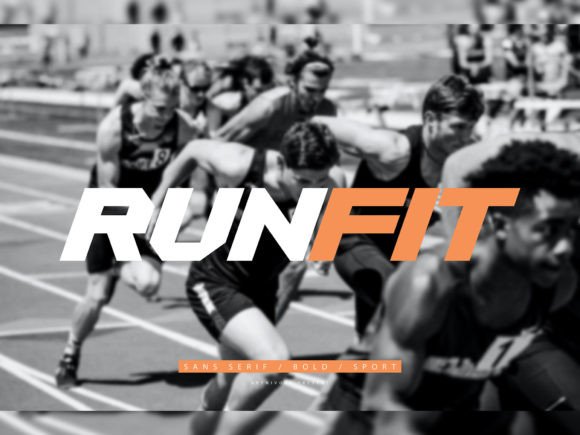
Immerse yourself in the captivating world of Runfit Font, an expertly crafted sans serif typeface that exudes elegance, simplicity, and sophistication. Designed with meticulous attention to detail, Runfit offers a fresh and modern aesthetic that instantly elevates any design project it graces.
Unleash your creativity with Runfit's versatile personality, seamlessly transitioning from the sleek minimalism of a logo design to the engaging stories told through magazine layouts. Its clean lines and timeless appeal make it an ideal choice for a wide range of design applications, including social media posts, brochures, and beyond.
With Runfit, elevate your designs to new heights and capture the attention of your audience with its captivating charm. Discover the endless possibilities that await as you unlock the potential of this remarkable font and let your imagination soar free.
- Modern Sans Serif: Experience the beauty of a contemporary sans serif font that embodies the essence of modernity and sophistication.
- Versatile Allure: From striking logos to captivating social media posts, Runfit effortlessly adapts to your design needs, delivering impact in every context.
- Timeless Elegance: Runfit transcends fleeting trends, offering a timeless aesthetic that remains relevant and captivating for years to come.